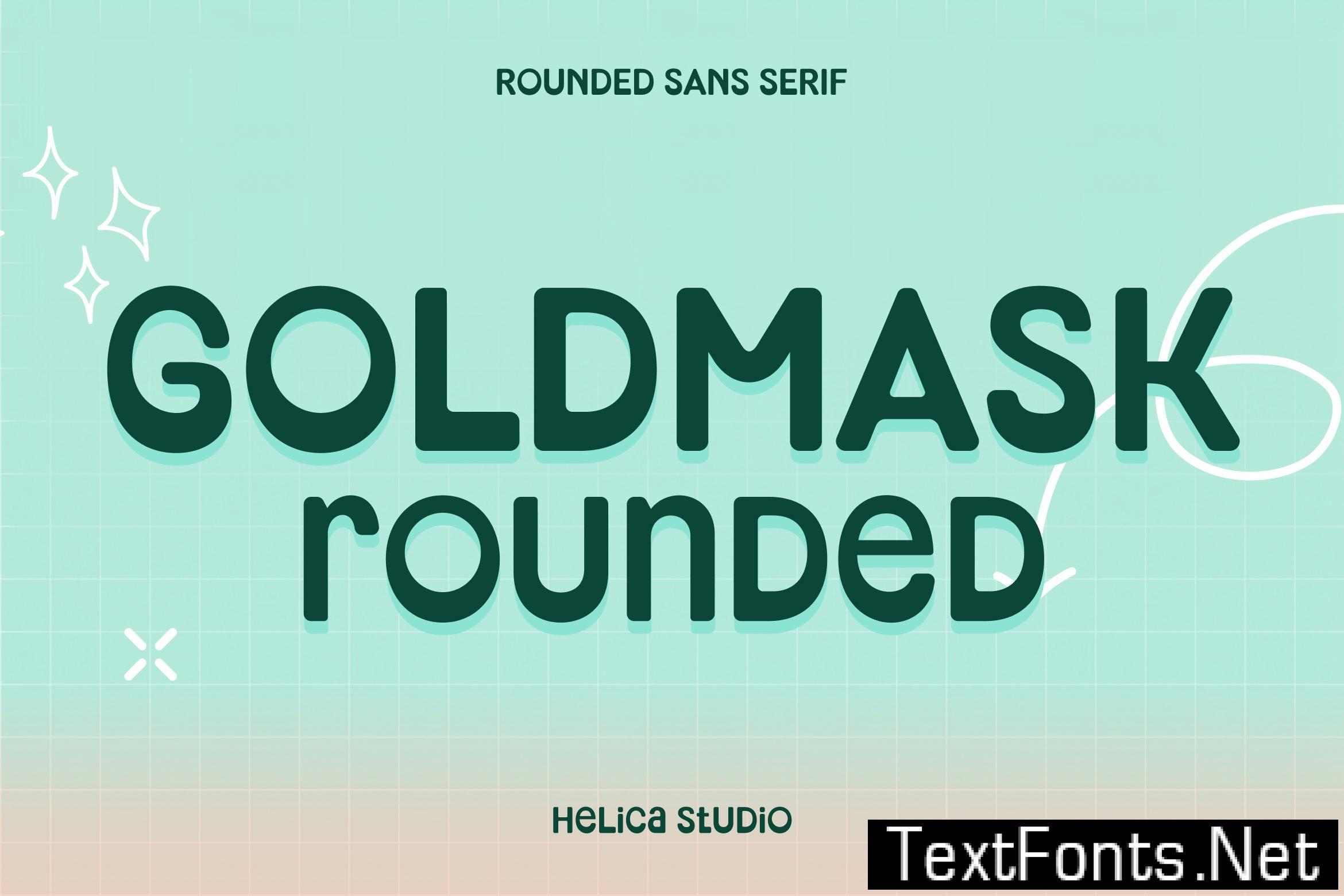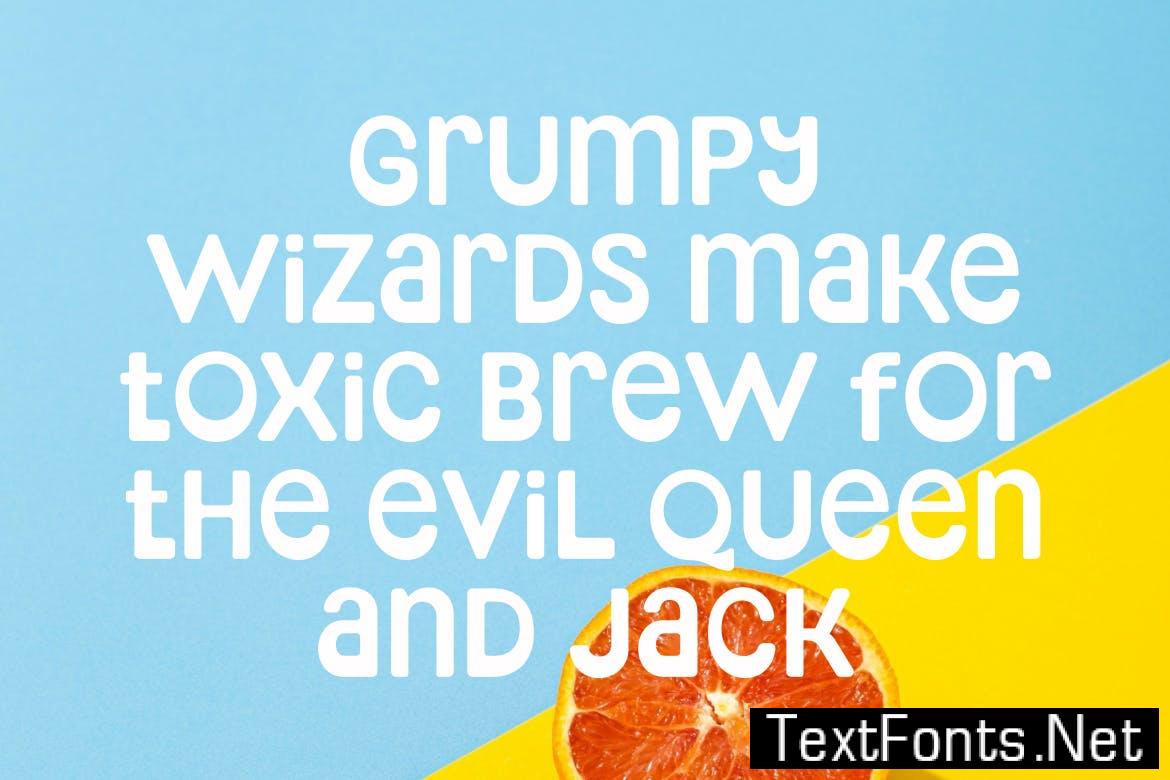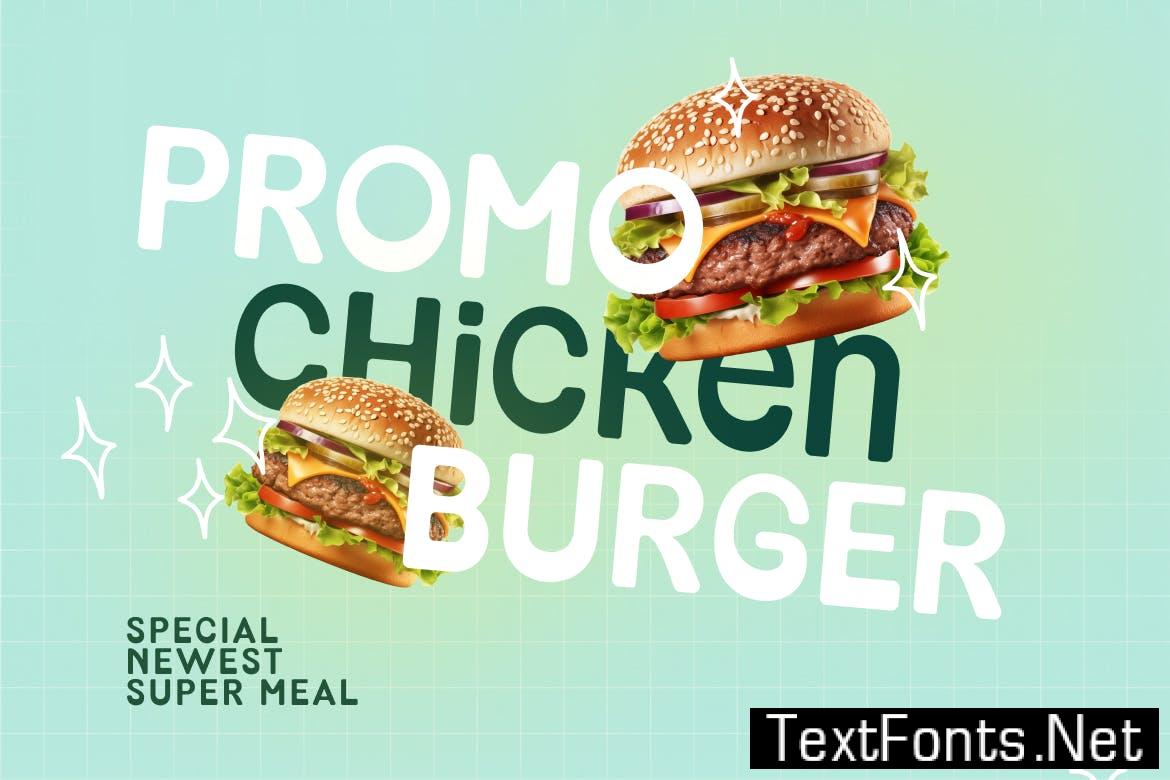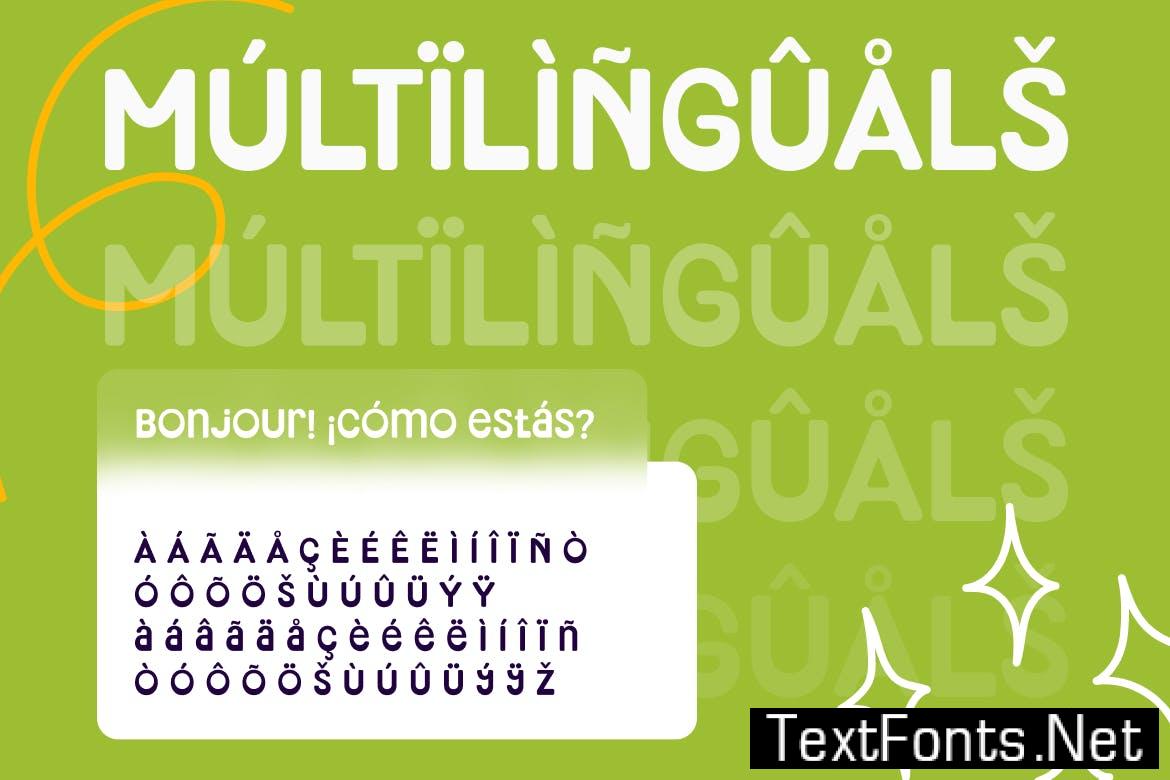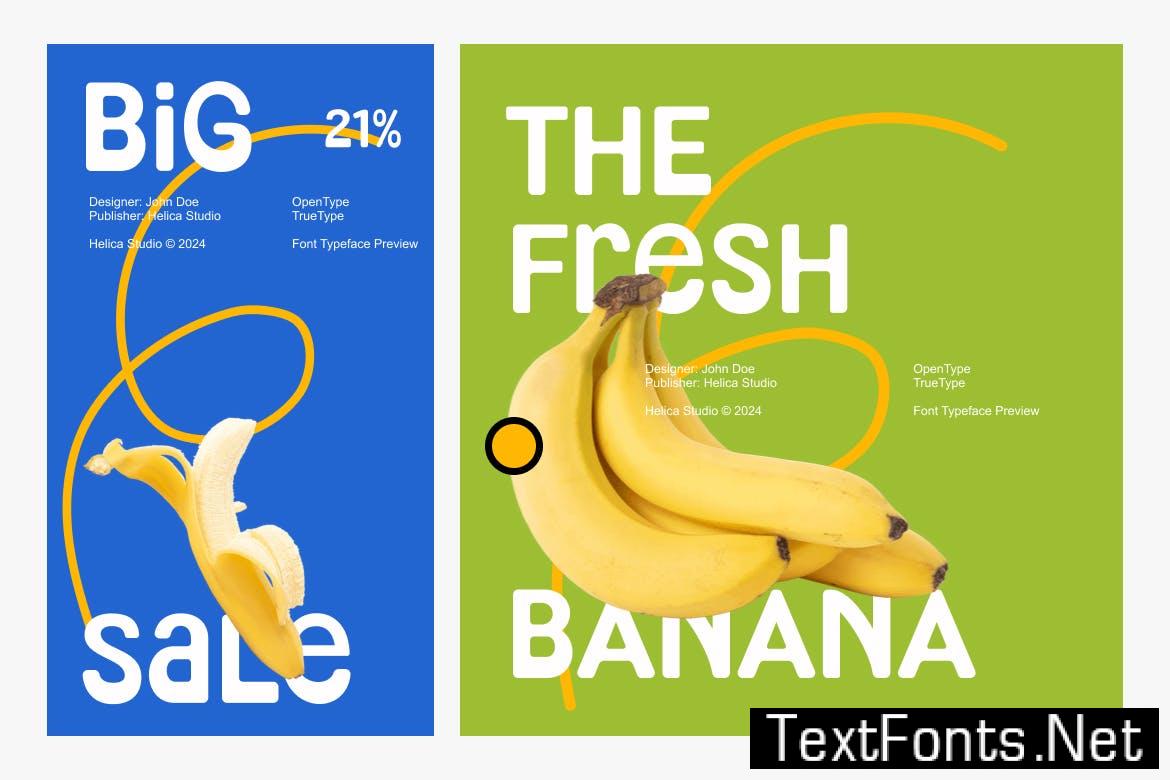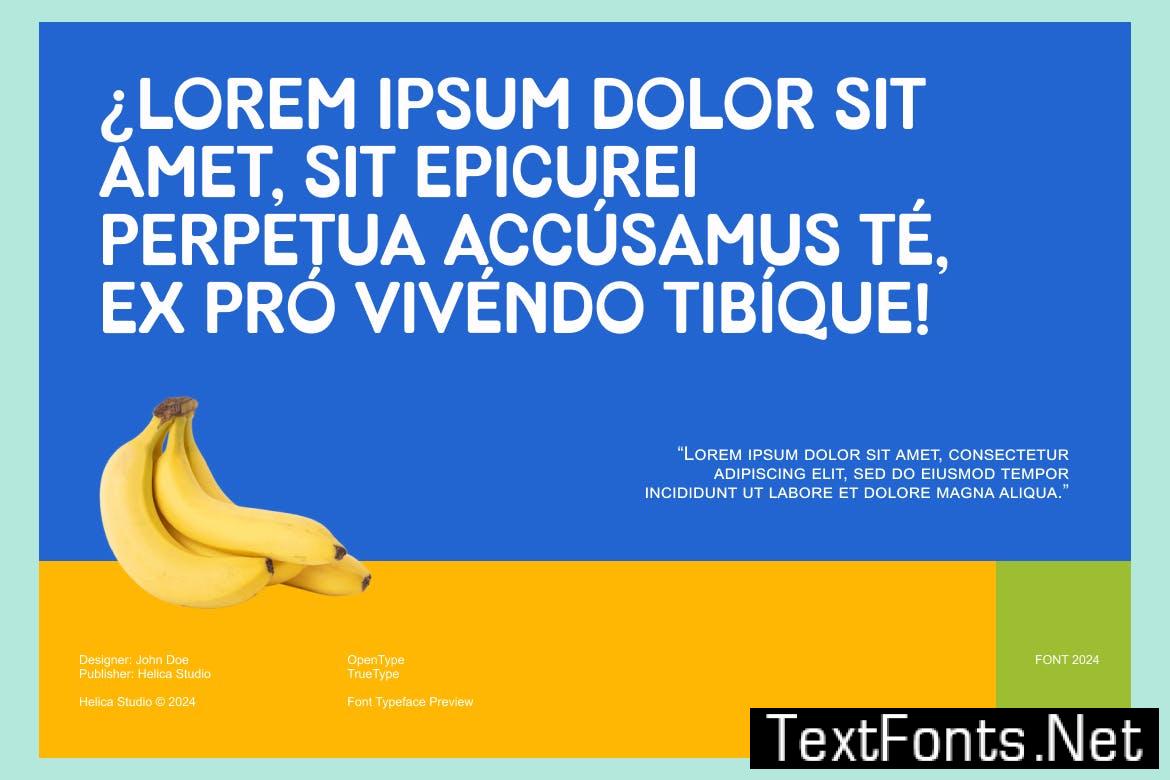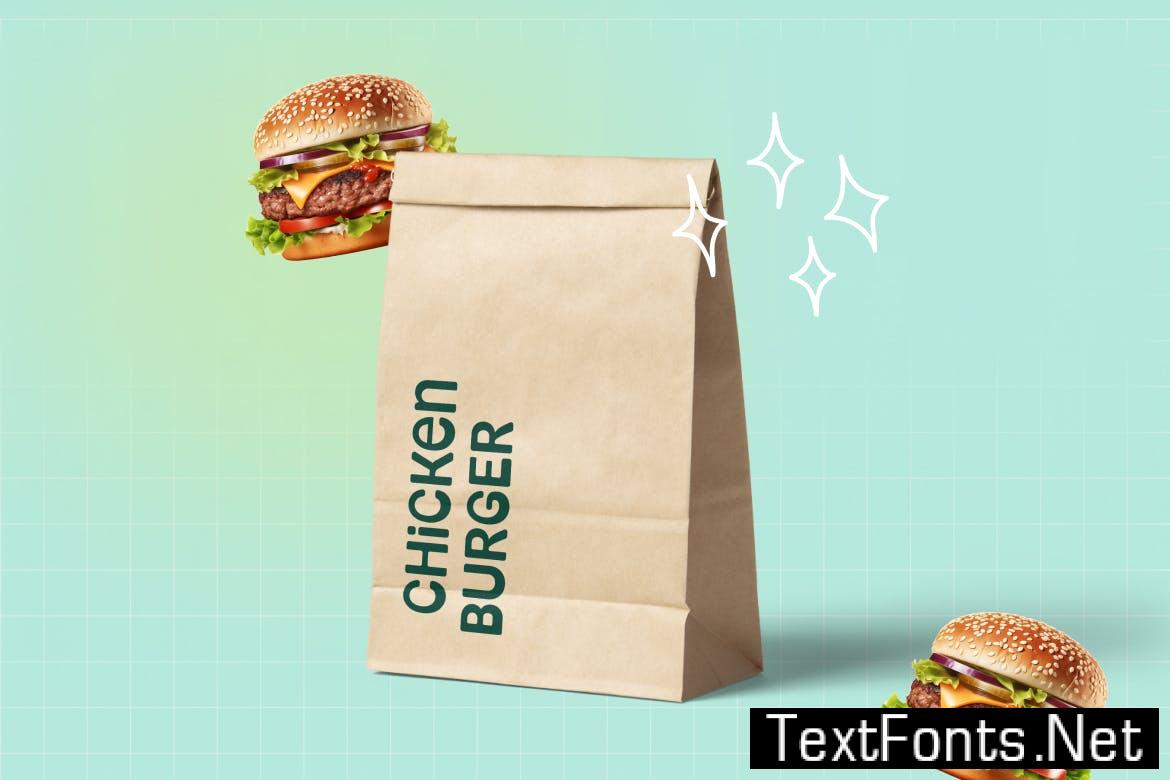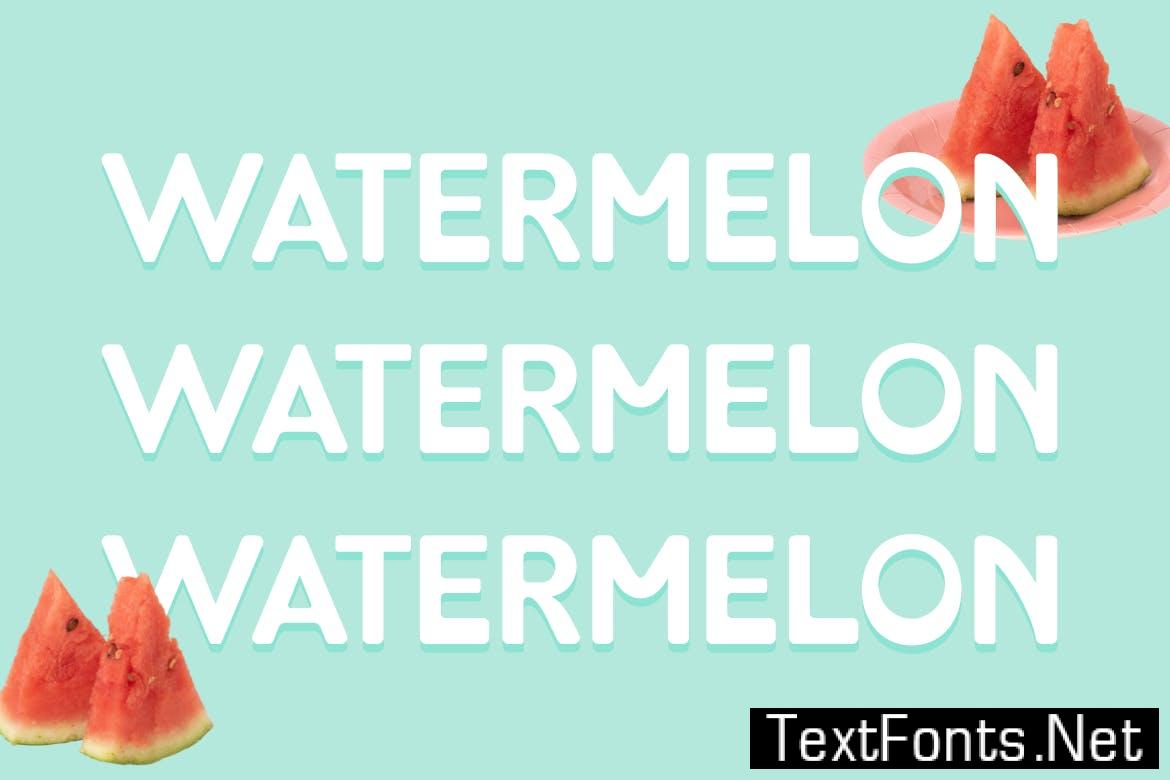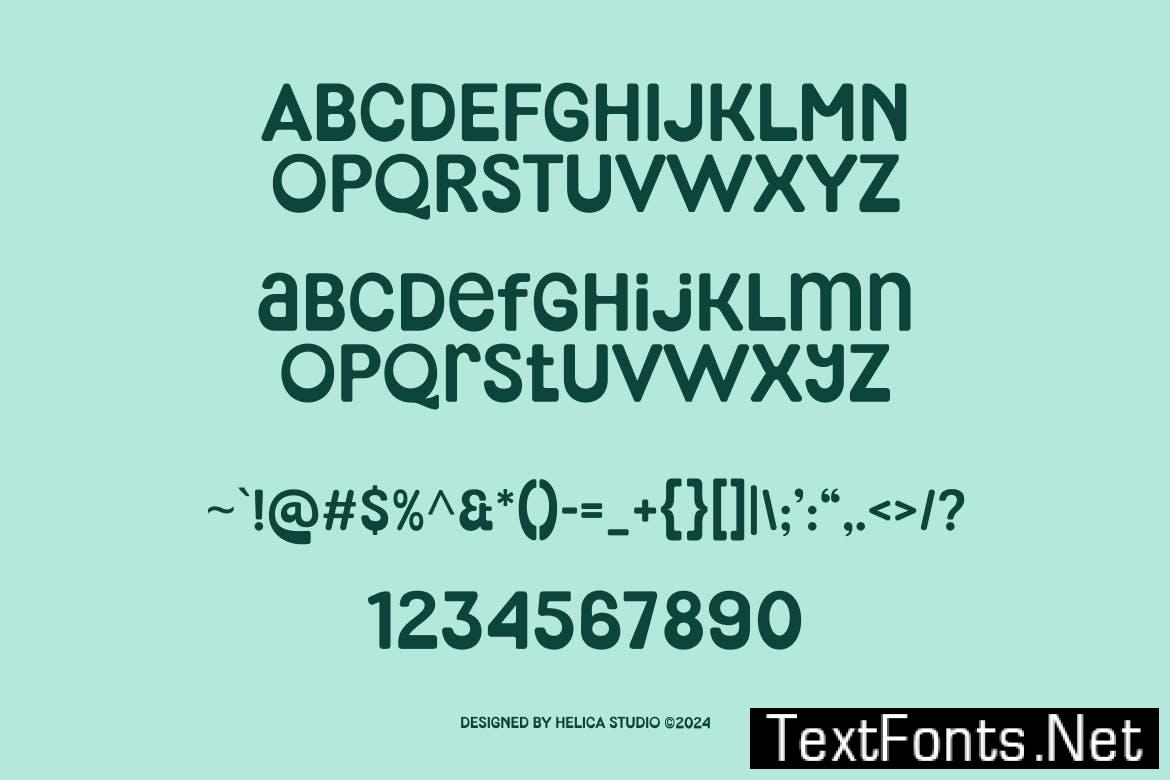
**Goldmask Rounded Font** a sleek, modern sans-serif font with rounded edges. Perfect for contemporary designs, its clean and friendly appearance adds a touch of warmth to any project. Explore its versatility for branding, web design, and more. Enjoy!
* Uppercase & Lowercase
* Numeral & Punctuations